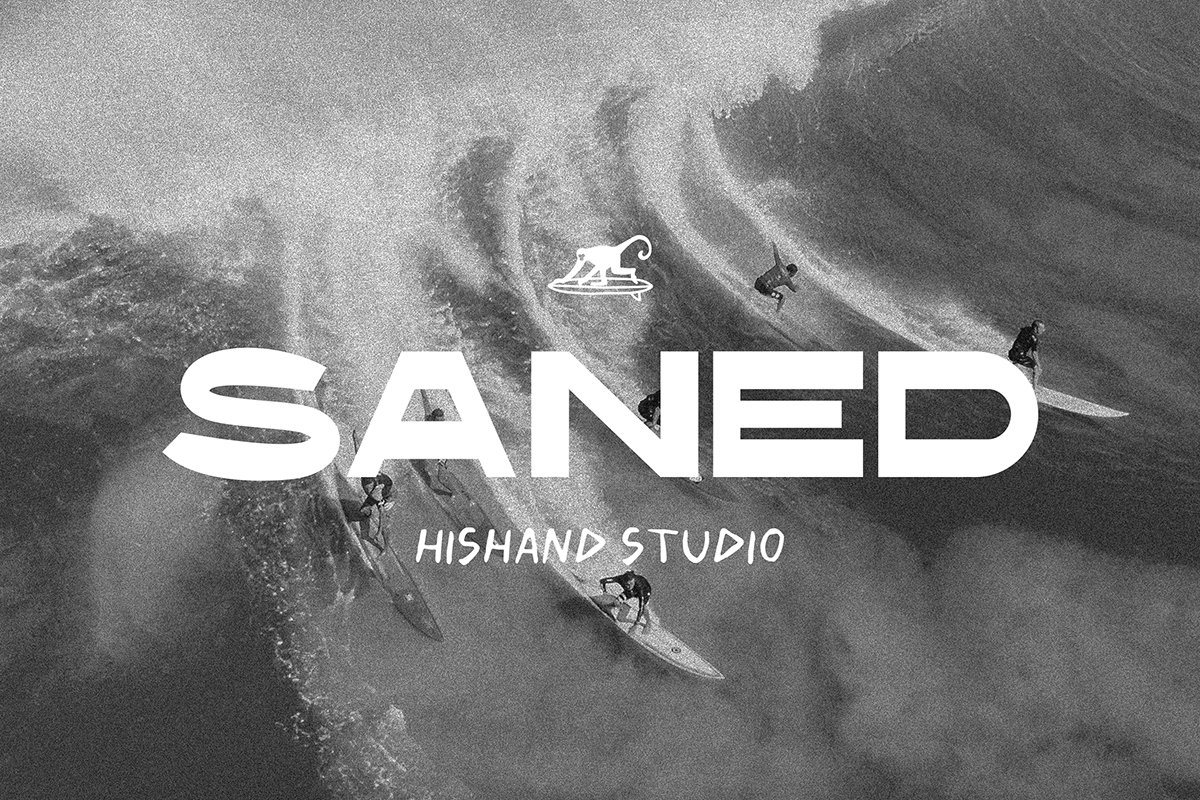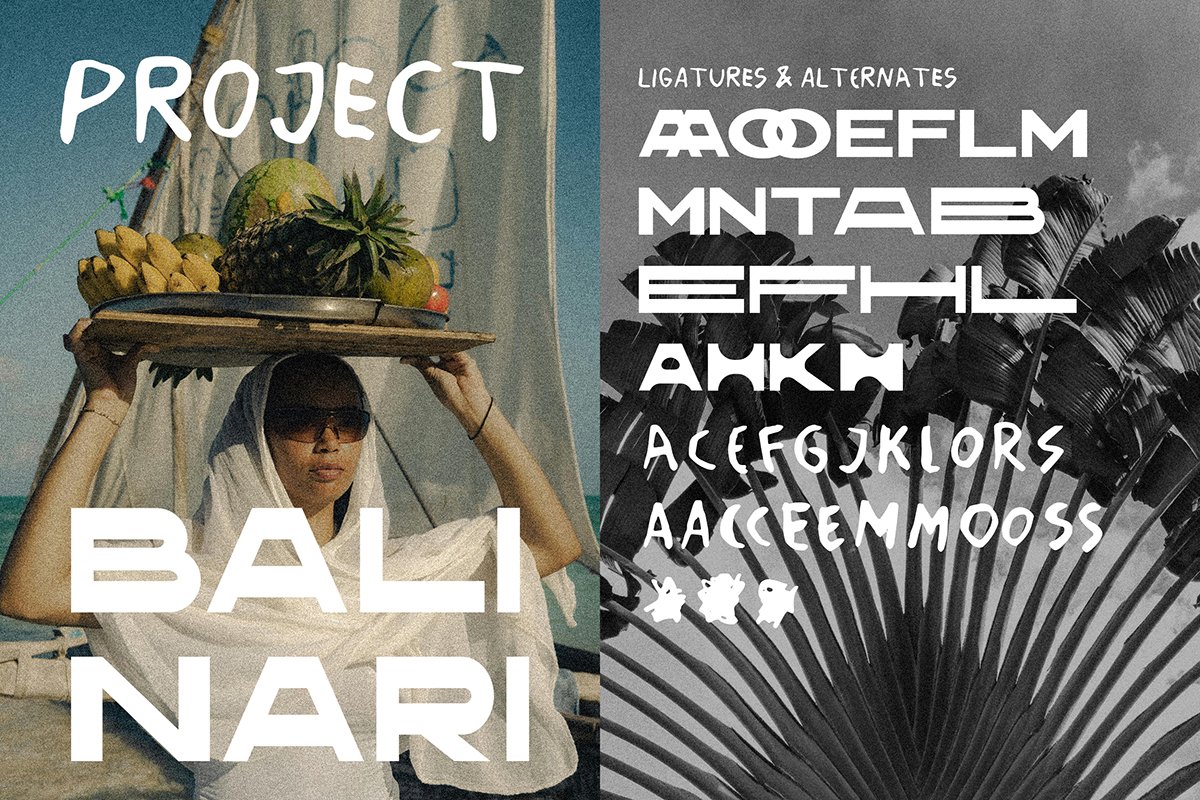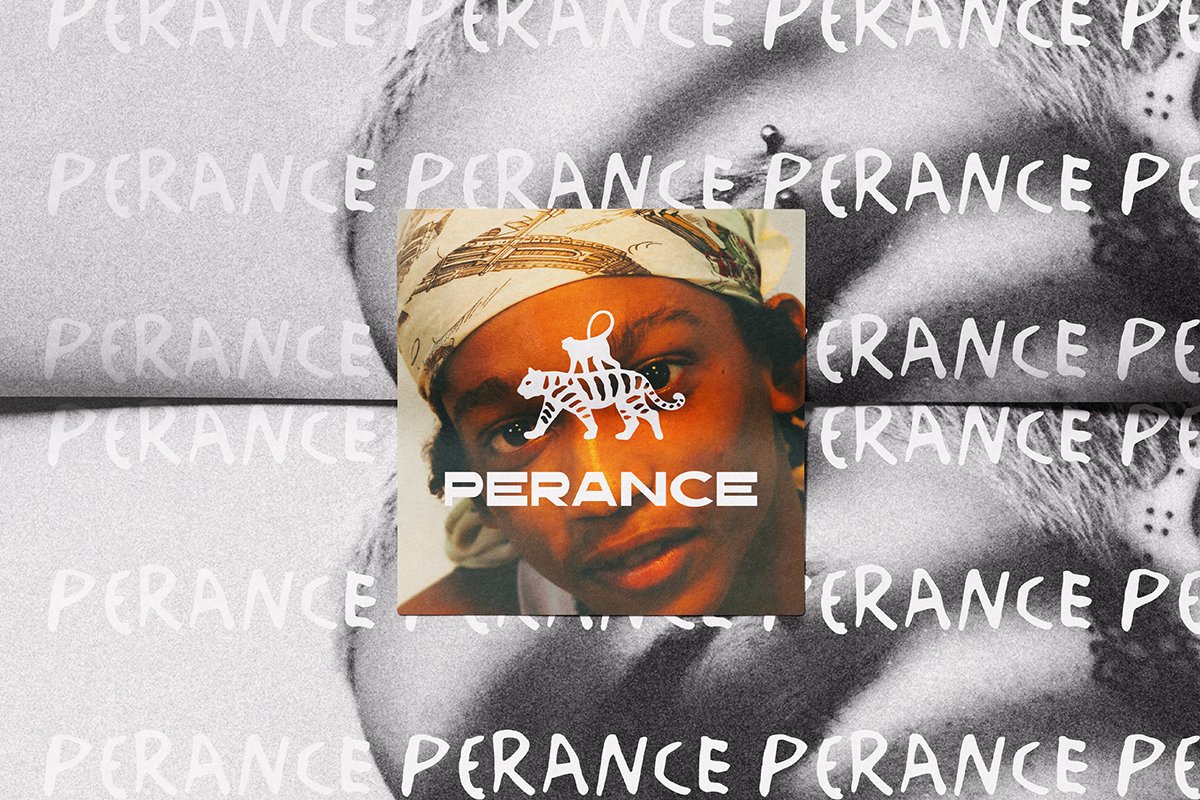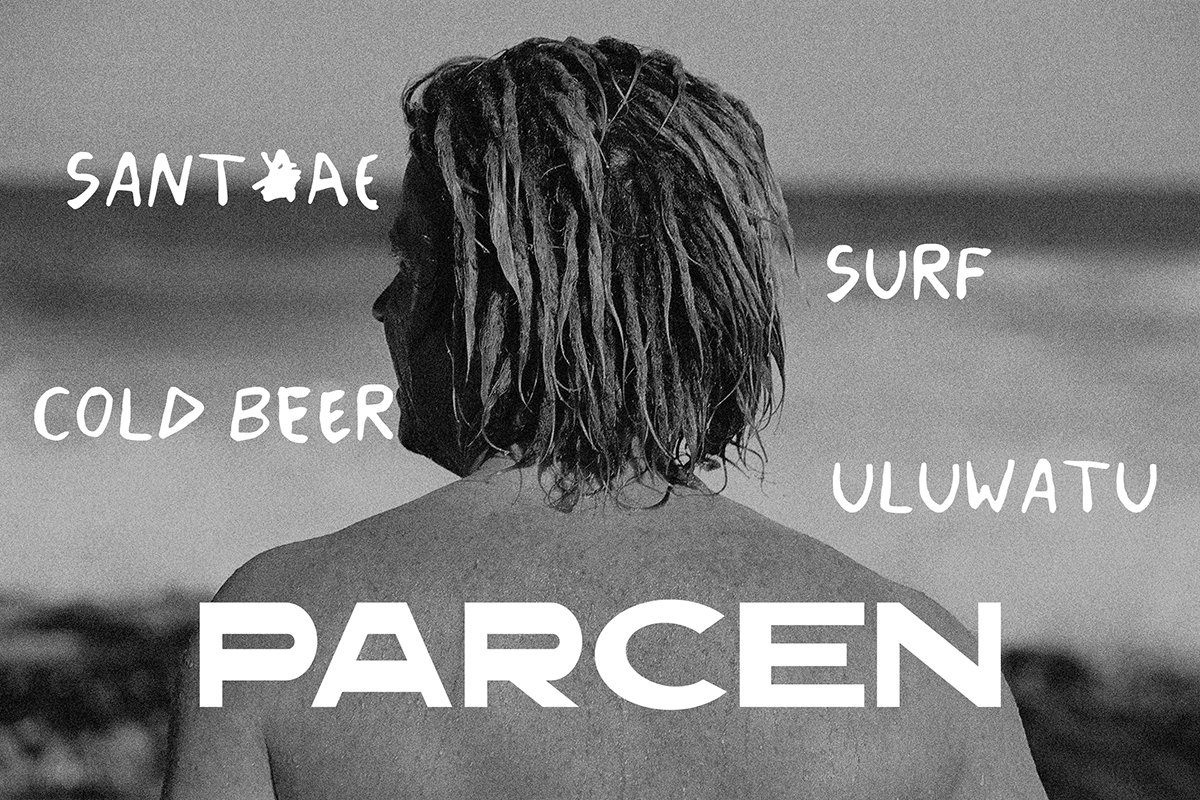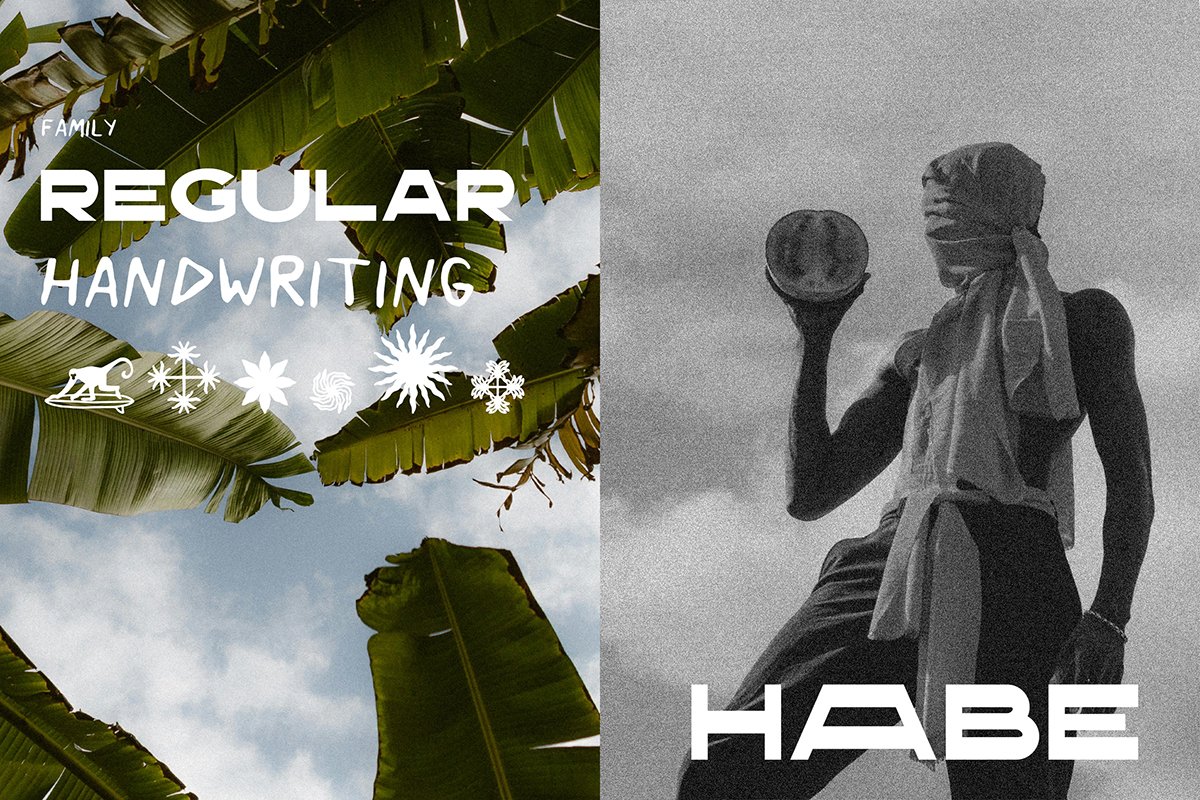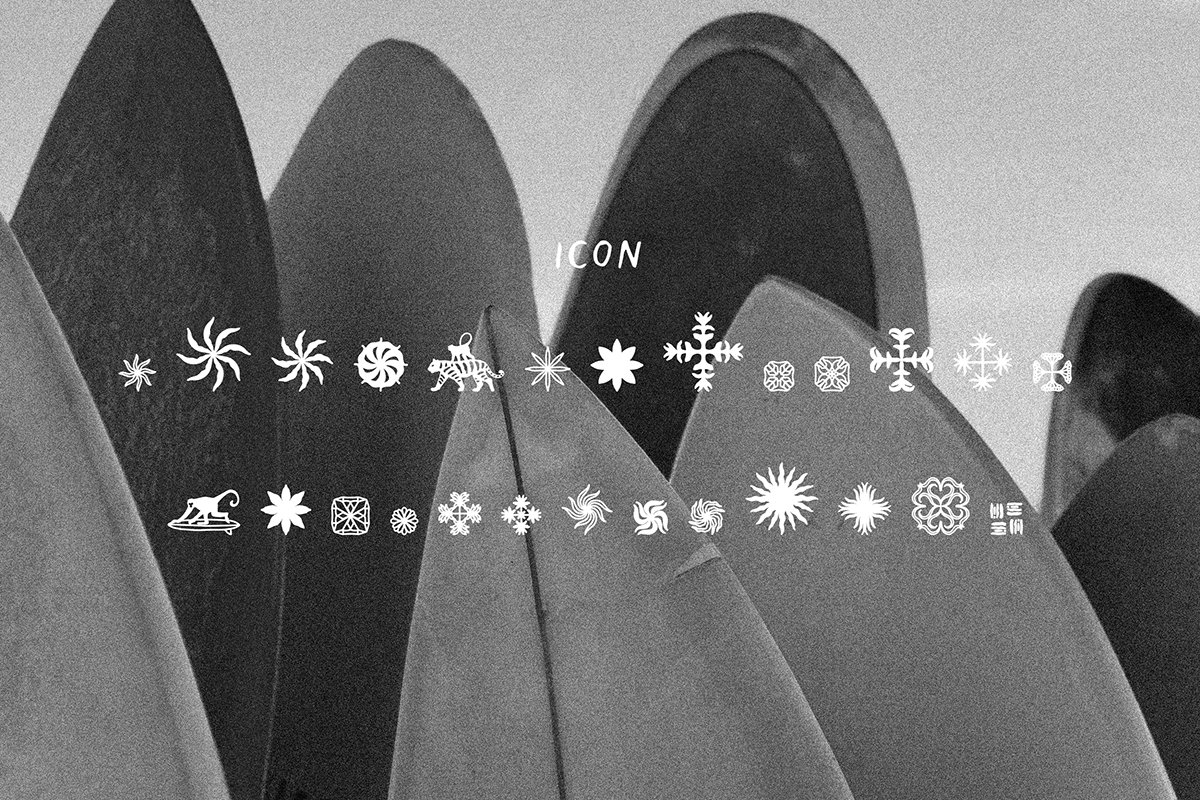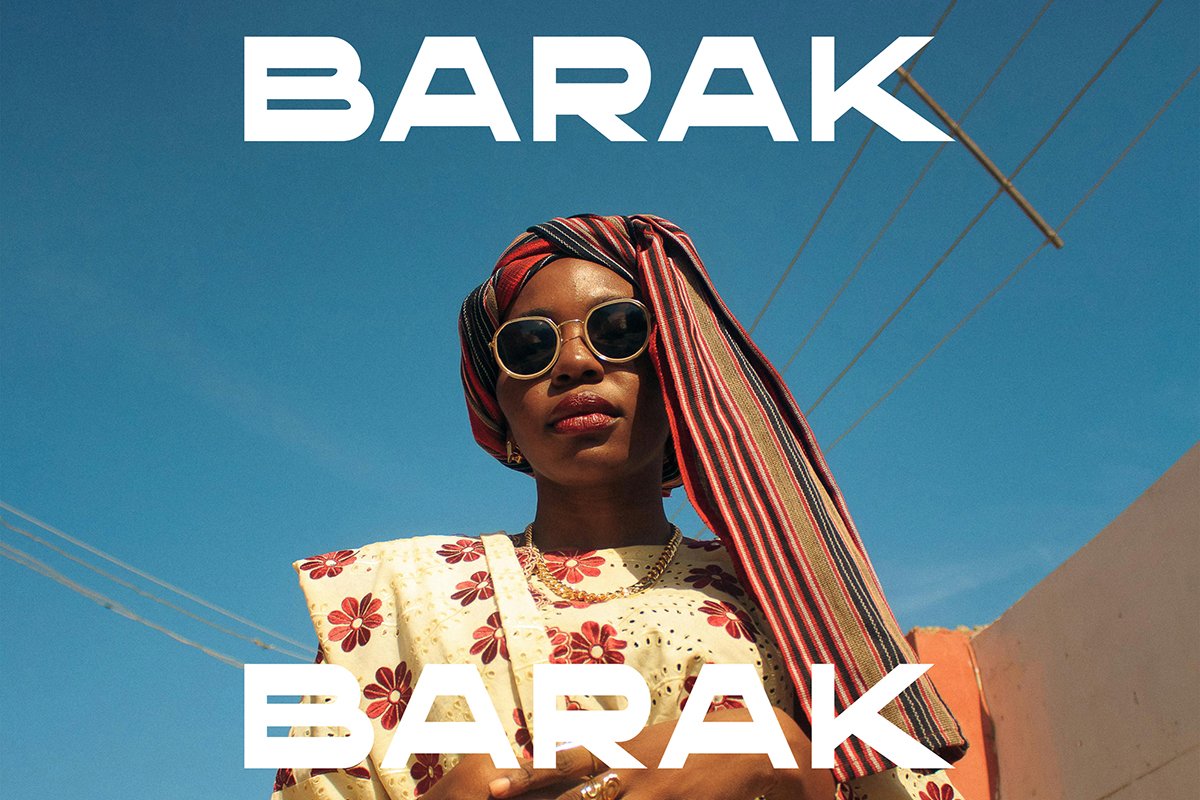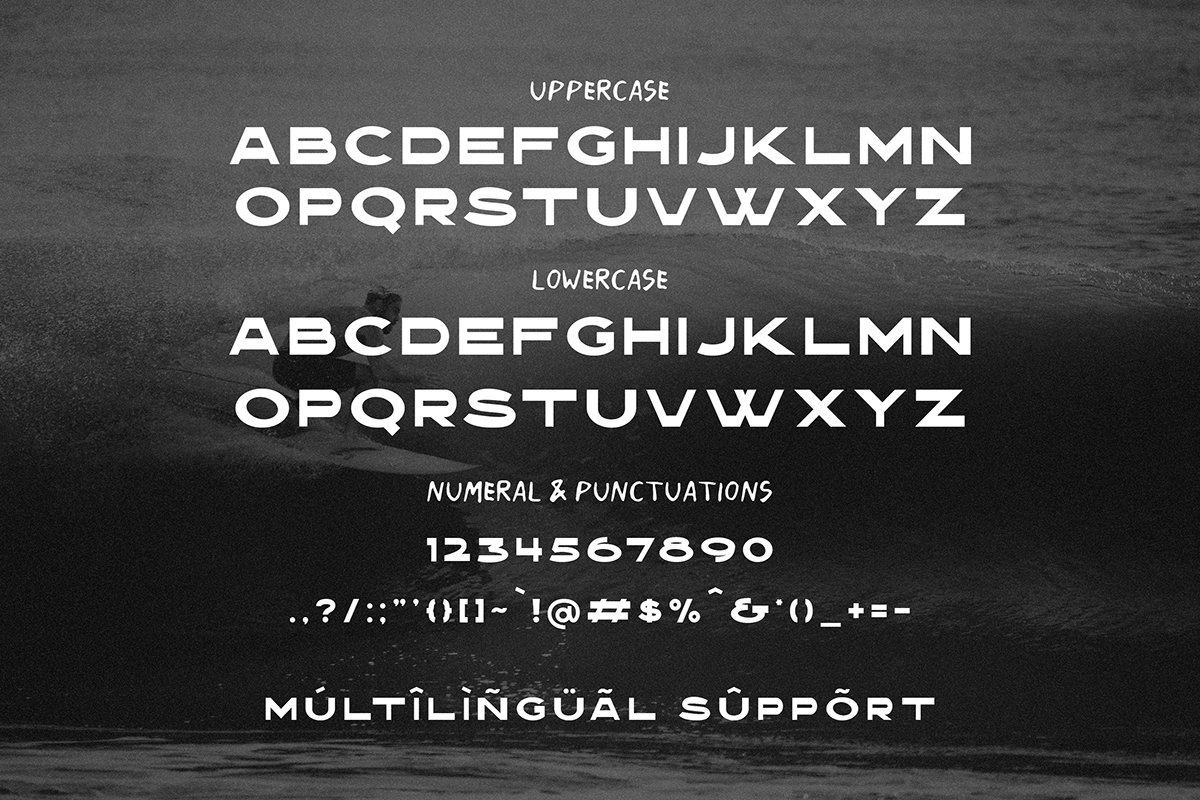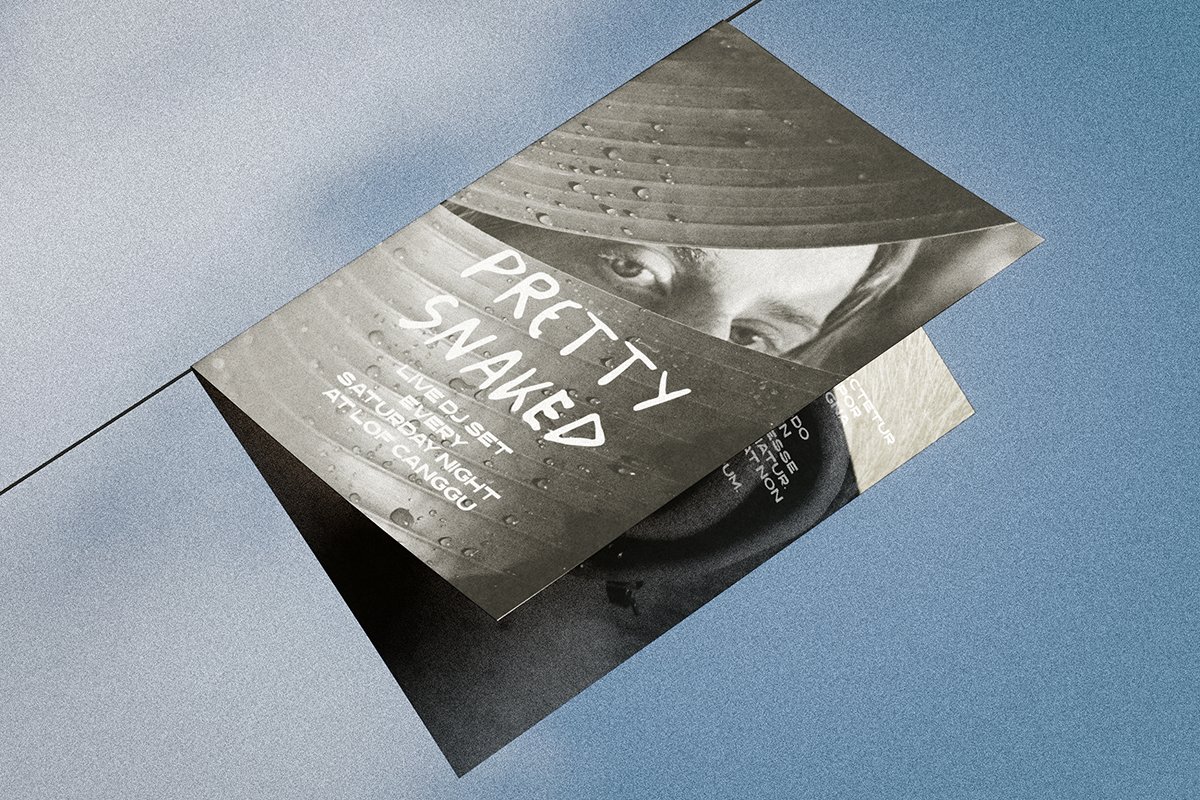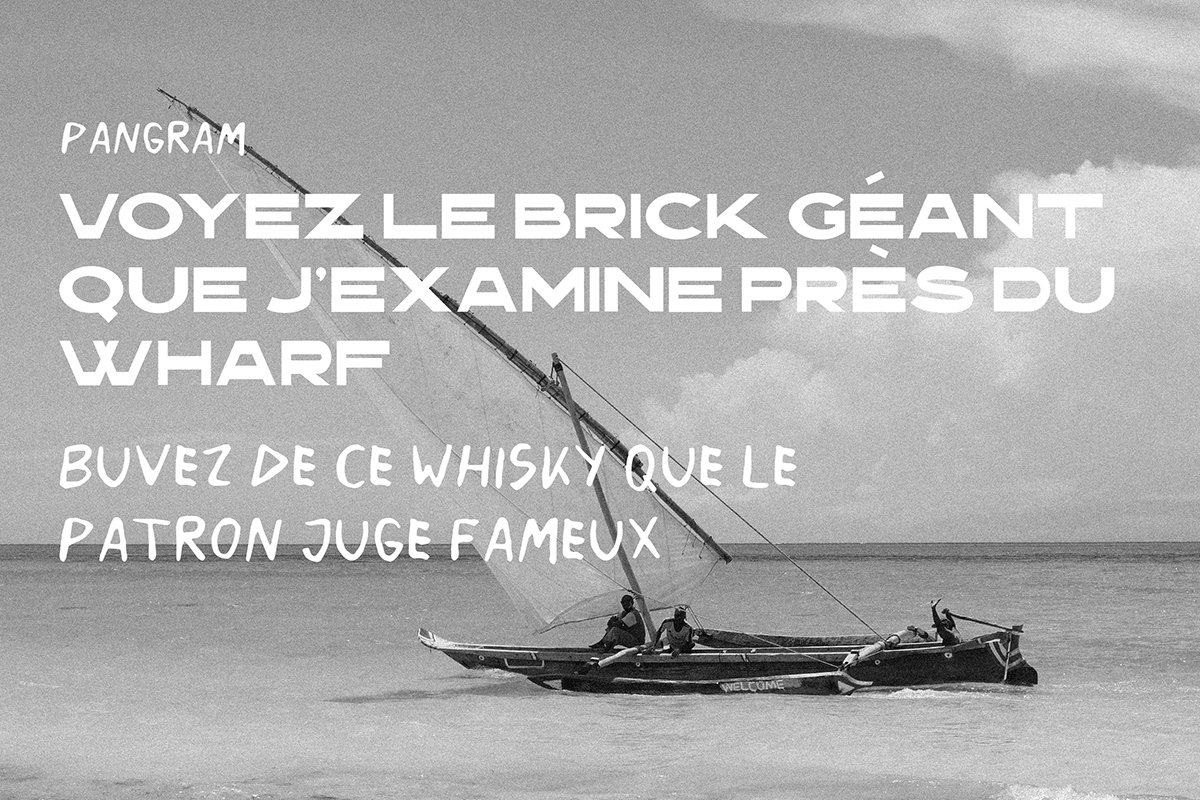
Saned Display Font is a modern sans serif display font. It is designed to bring a clean yet striking aesthetic to any visual project. Built with carefully balanced proportions, smooth curves, and a confident overall structure, it offers a refined visual presence that feels both contemporary and effortlessly cool. Its clarity makes it highly legible, while its distinctive character ensures that it stands out without overpowering other design elements. This makes Saned Font Duo an excellent choice for designers who want to achieve a strong visual impact while maintaining a sense of elegance and simplicity.